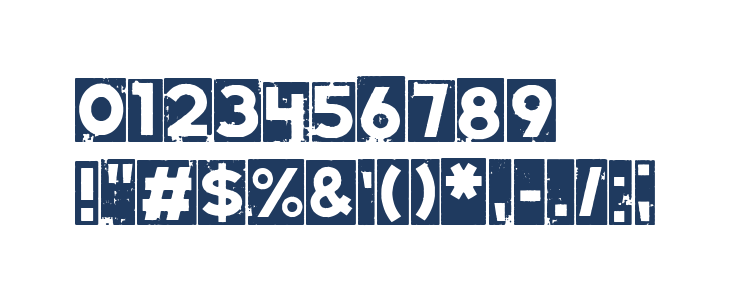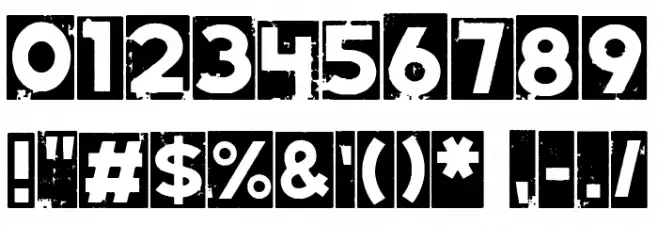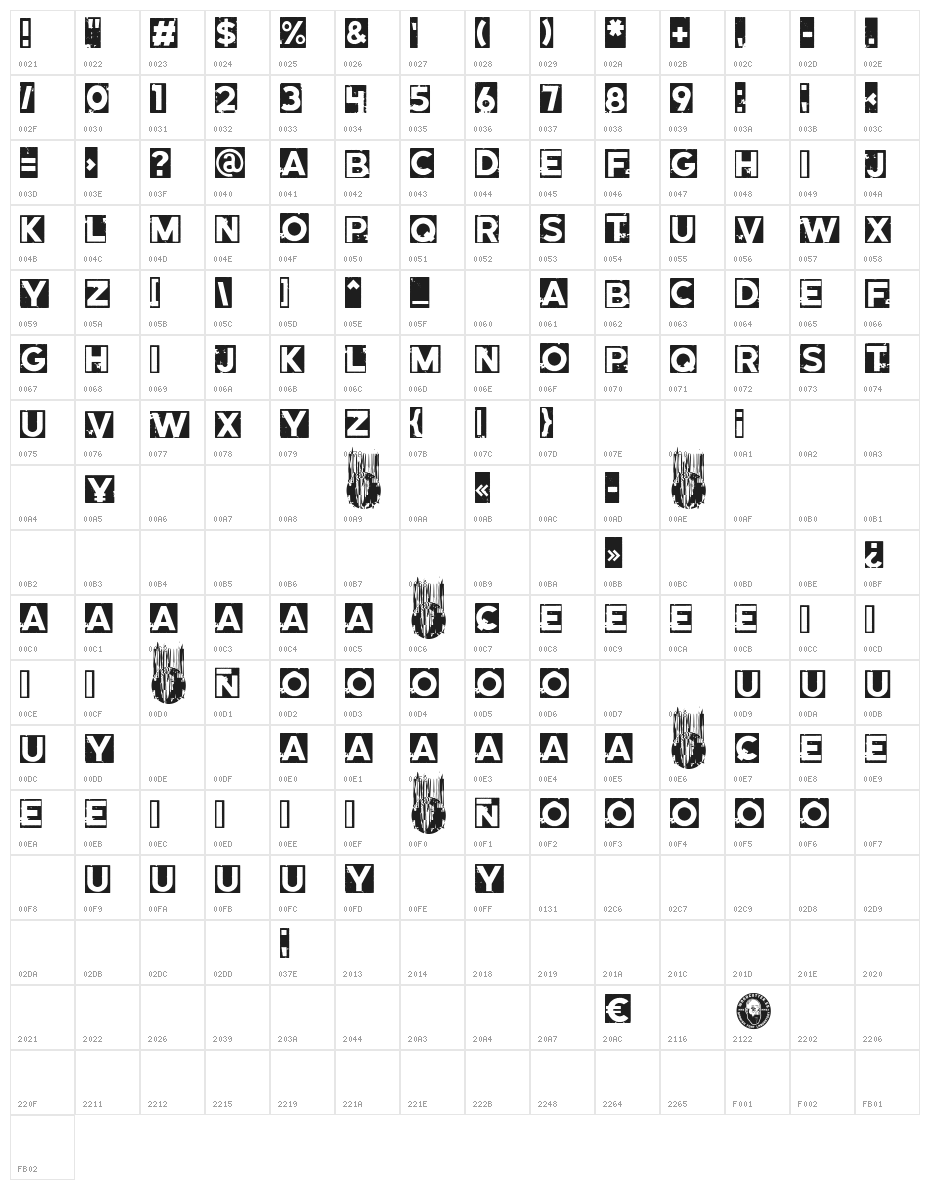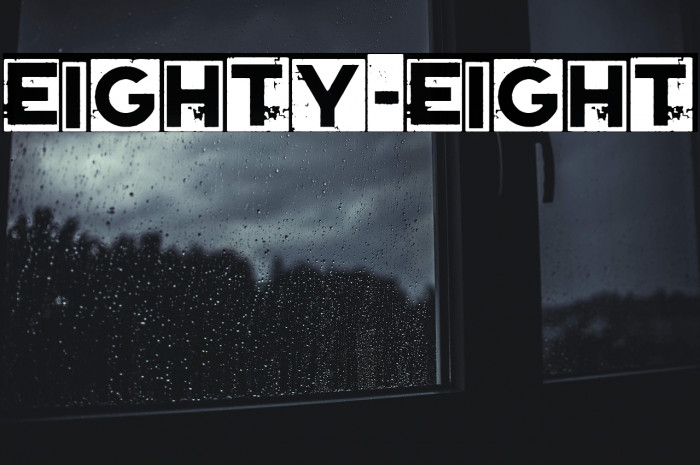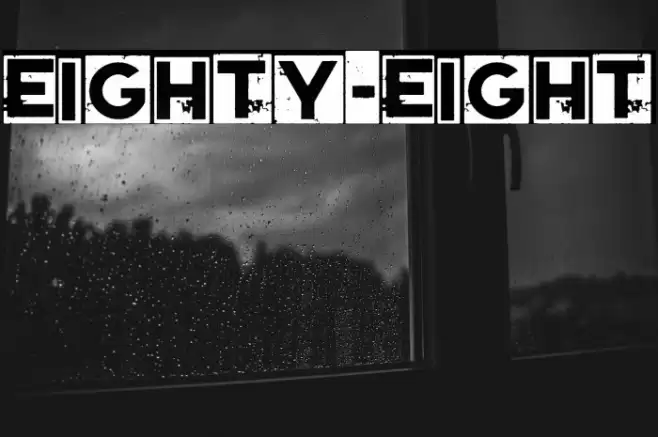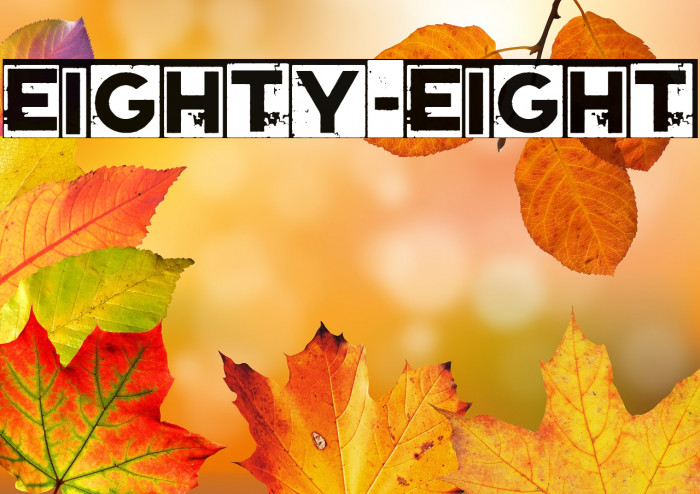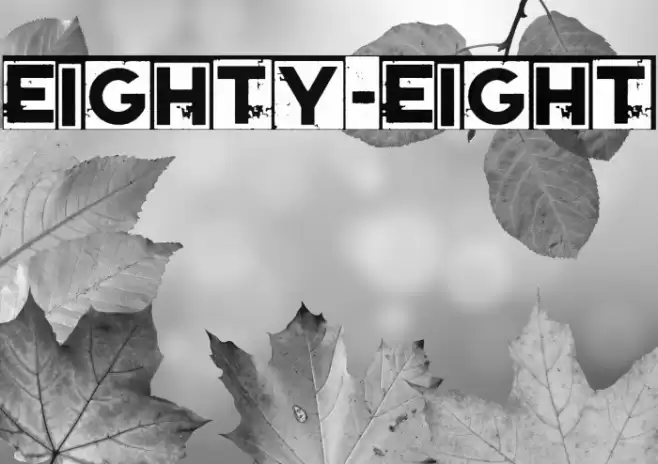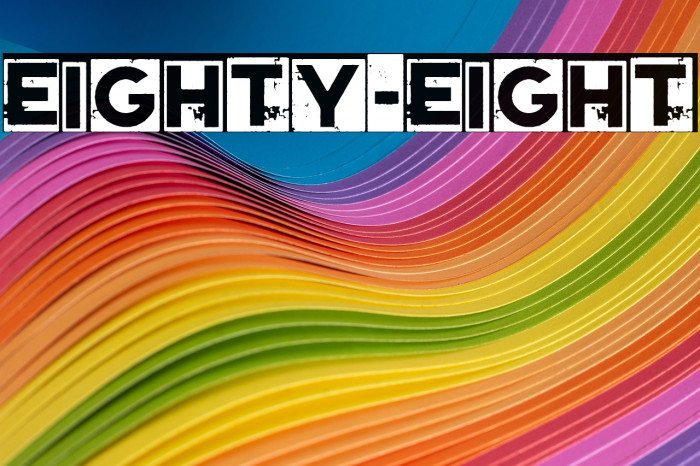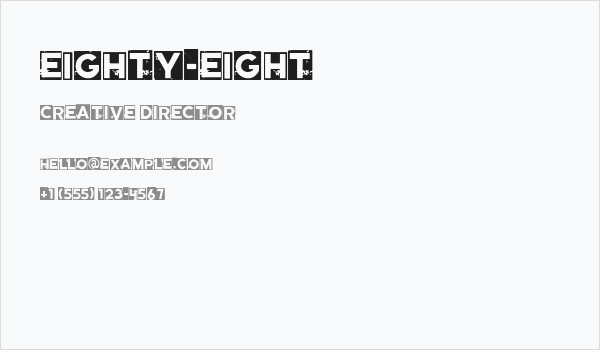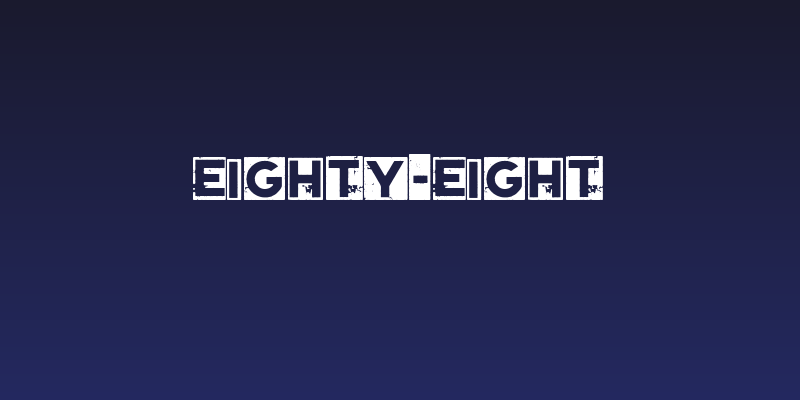
Eighty-Eight Font
Eighty-Eight Description
This font features a bold, distressed style with a high-contrast design. Each character is enclosed in a square block, giving it a strong, impactful appearance. The distressed texture adds a rugged, vintage feel, making it ideal for designs that require a bold statement. The uppercase and lowercase letters maintain a consistent style, while the numbers and special characters follow the same distressed block pattern. This font is perfect for projects that aim to capture attention with a gritty, urban aesthetic.
EIGHTY-EIGHT UPPERCASE
EIGHTY-EIGHT LOWERCASE
EIGHTY-EIGHT OTHER CHARS
| Proposed Projects | Ideal for posters, album covers, branding for edgy products, or any design needing a strong, impactful look. |